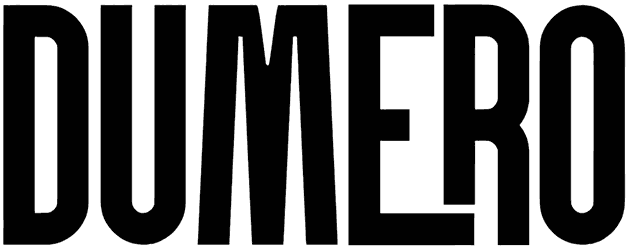
Rollback Font
You can always trust Rollback with your branding designs, and it’ll always make you proud. Let’s just say it’s made to look splendid and one-of-a-kind, and that’s the sort of thing that can revolutionize your logo projects.
As a sans serif font with a sweet tone, Rollback can speak adequately for any brand of home furniture, clothes, accessories, and other luxury products like that. It’s also available in a second style in case you want this swash font in italics.